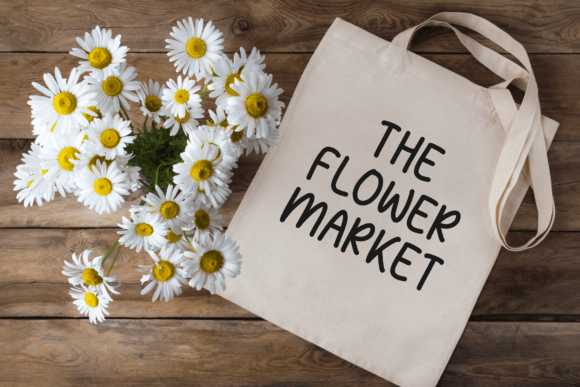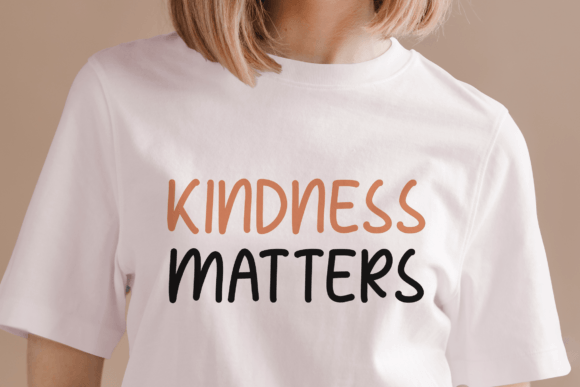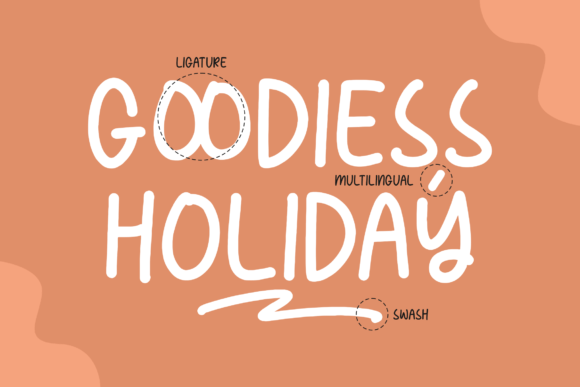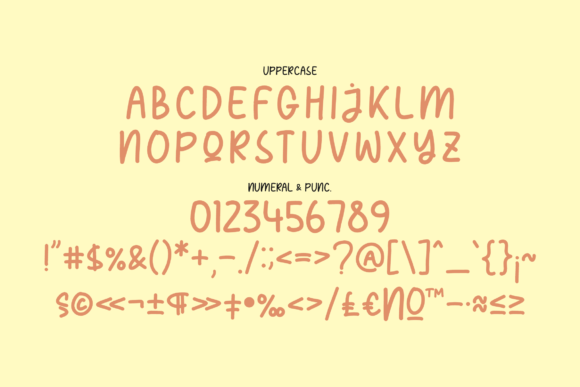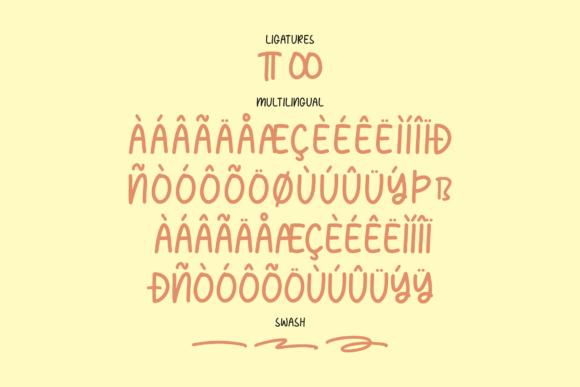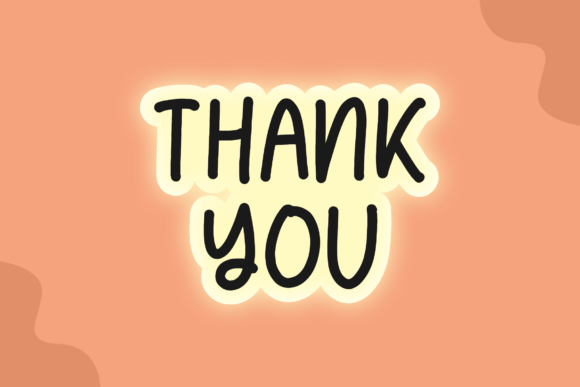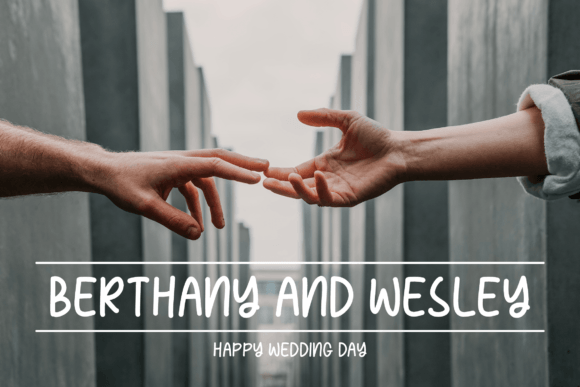
Pencake Sweety Font
About Pencake Sweety Font
“Pencake Sweety” is not your ordinary font; it’s a delightful fusion of quirkiness and charm, a handwritten masterpiece that adds a touch of playfulness to any project. Its whimsical strokes and unique characters make it a versatile choice, transforming mundane concepts into captivating works of art.
Imagine your logo adorned with the playful curves of Pencake Sweety, instantly becoming a memorable emblem that represents your brand’s creativity and uniqueness. Picture your homeware designs, each piece infused with the font’s quirky personality, turning everyday items into conversation starters. Whether you’re designing product packaging that stands out on the shelves or creating personalized mugs and T-shirts, Pencake Sweety lends a touch of character that sets your products apart.
Quotes come alive with this font, each word taking on a whimsical personality that resonates with the reader. Posters and shopping bags become vibrant canvases, telling stories through the playful typography. Book covers acquire an intriguing allure, inviting readers to explore the magic within. Name cards and invitation cards transform into keepsakes, leaving a lasting impression on everyone who receives them.
Greeting cards become tokens of joy, each word in Pencake Sweety carrying heartfelt messages with a touch of humor. Labels gain a unique identity, enhancing the appeal of your products and making them instantly recognizable. Even in photography, this font adds a creative twist, complementing images with a quirky watermark that captures attention.
In a world filled with standard fonts, Pencake Sweety stands out as a beacon of creativity and originality. Its handwritten charm adds a personal touch to your projects, making them relatable and engaging. It’s not just a font; it’s an experience—an experience that speaks of imagination, quirkiness, and artistic flair.
When you choose Pencake Sweety for your design projects, you’re not just selecting a font; you’re embracing a spirit of individuality and creativity. You’re inviting your audience into a world of whimsy and charm, where every letter tells a story and every curve sparks curiosity. Pencake Sweety is more than a typeface; it’s a source of inspiration, a playful muse that transforms your ideas into delightful and unique creations.
So, whether you’re a professional designer looking to make a statement or an individual with a passion for creativity, Pencake Sweety is your creative companion. It’s more than a font; it’s an opportunity to infuse your projects with a touch of quirkiness and a splash of personality. Let Pencake Sweety be the brush that paints your imagination and the handwritten touch that adds a unique flair to your lovely projects.